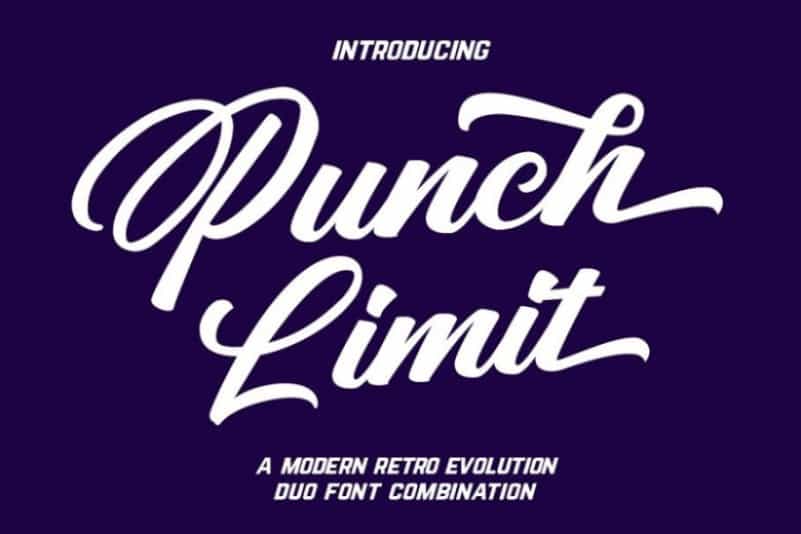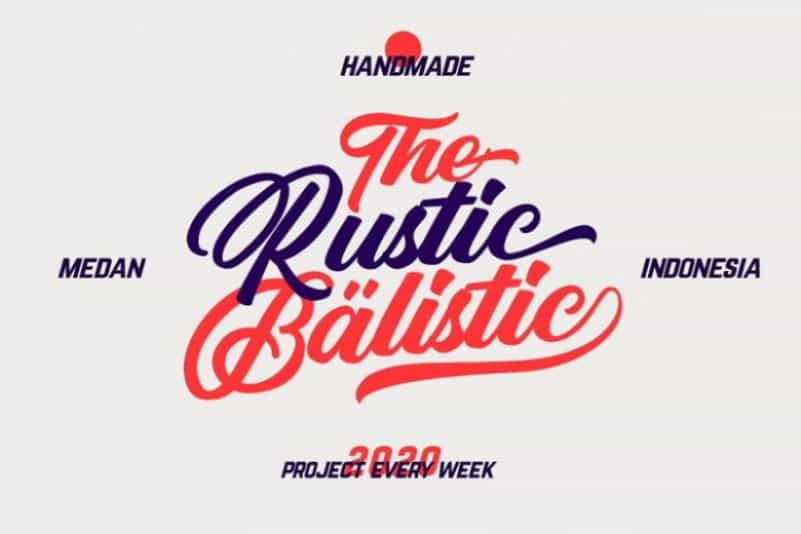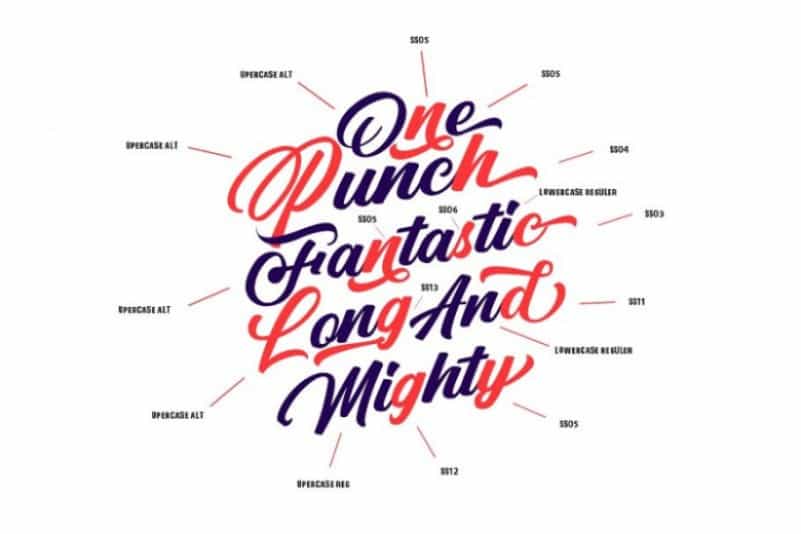
Punch Limit is a new font duo that combines an attractive and elegant Regular style with the are all marketable Oblique sans serif which perfectly fit together. It will be particularly nice on any gaming or sport-themed projects! This adaptable script typeface has a lot of options for the different ss01-ss15 and each uppercase letter.